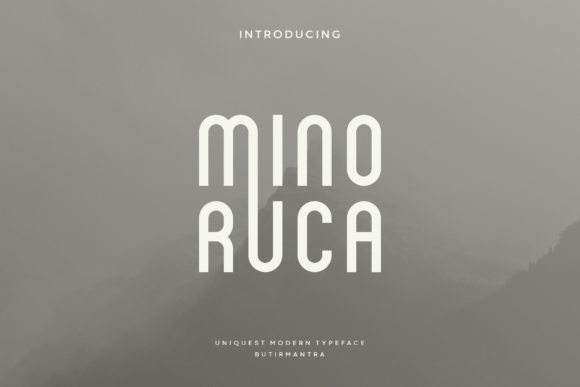
Unleash your culinary creativity with Minoruca: The Ultimate Sans Serif Font for Food Logos
In the realm of food branding, your logo is the tantalizing morsel that draws customers in and leaves them craving more. With Minoruca, the all-caps display font crafted by the ingenious garismantra, you'll transform your food logo into a feast for the eyes.
Minoruca's distinctive style captivates attention, making your logo an irresistible centerpiece that beckons your customers to indulge in your culinary delights. Its bold and regular sizes dance together in perfect harmony, adding a dynamic flair that reflects the vibrancy of your food creations.
Whether you're baking tantalizing pastries, brewing aromatic coffees, or concocting delectable dishes, Minoruca captures the essence of your culinary passion and translates it into a visual masterpiece. Its versatility knows no bounds, making it the perfect font for logos, menus, packaging, and any marketing material that craves a dash of culinary charm.
With Minoruca as your secret ingredient, your food logo will exude an aura of sophistication and allure. Customers will be drawn to its magnetic pull, eager to embark on a gastronomic journey that promises satisfaction and delight.
So, why settle for ordinary fonts when you can elevate your food brand with Minoruca? Its captivating style and versatility will transform your logo into a culinary masterpiece, leaving a lasting impression that lingers long after the last bite is savored. Don't let your food logo blend in with the rest; let Minoruca make it the talk of the town!